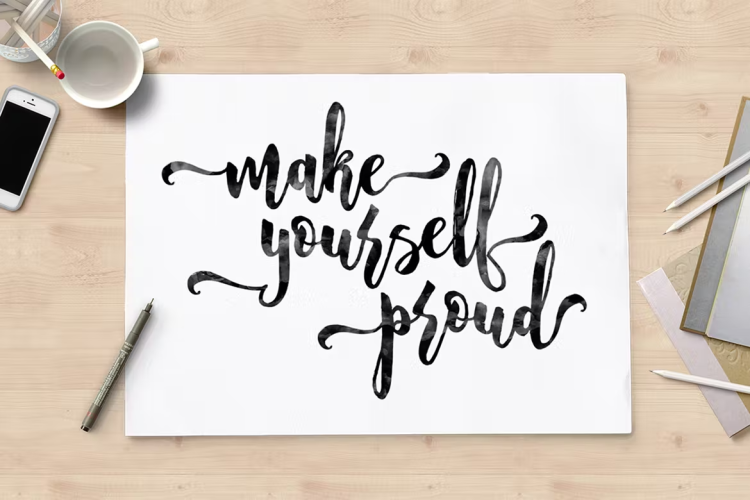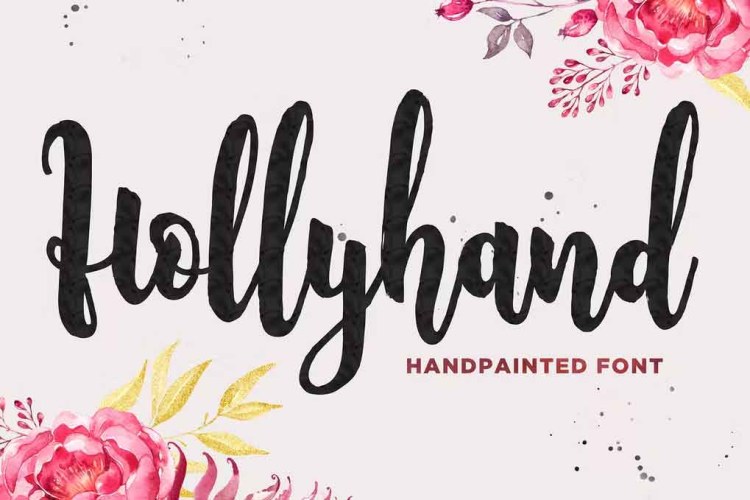
Holyhand Script Font
Holyhand Script is a handpainted font, bold, fancy and fabulous.Can used for various purposes. such as titles, labels, newsletters, posters, signatures, logos, correspondence, wedding invitations, letterhead, signage, badges, etc.
Holyhand Script features 261 Glyphs with 69+ Alternate character, including initial and terminal letters, alternates, ligatures and International support for most Western Languages is included.
Where Holyhand Script Font works best
A short phrase in Holyhand Script Font carries warmth that a typeset sans cannot fake; keep the rest of the card plain.
Chalkboard-style headings in Holyhand Script Font make a menu feel hand-made. Keep the dish descriptions in a simple face so prices stay readable.
One line of Holyhand Script Font over a photo is enough; the script carries the tone and the caption does the work.
What kind of work does Holyhand Script Font suit?
It sits in the Script And Handwritten group and reads as bold, branding, holyhand, script. That makes it a candidate wherever those qualities help: headings, packaging, social graphics and brand work. Set it at the size you plan to use before deciding.